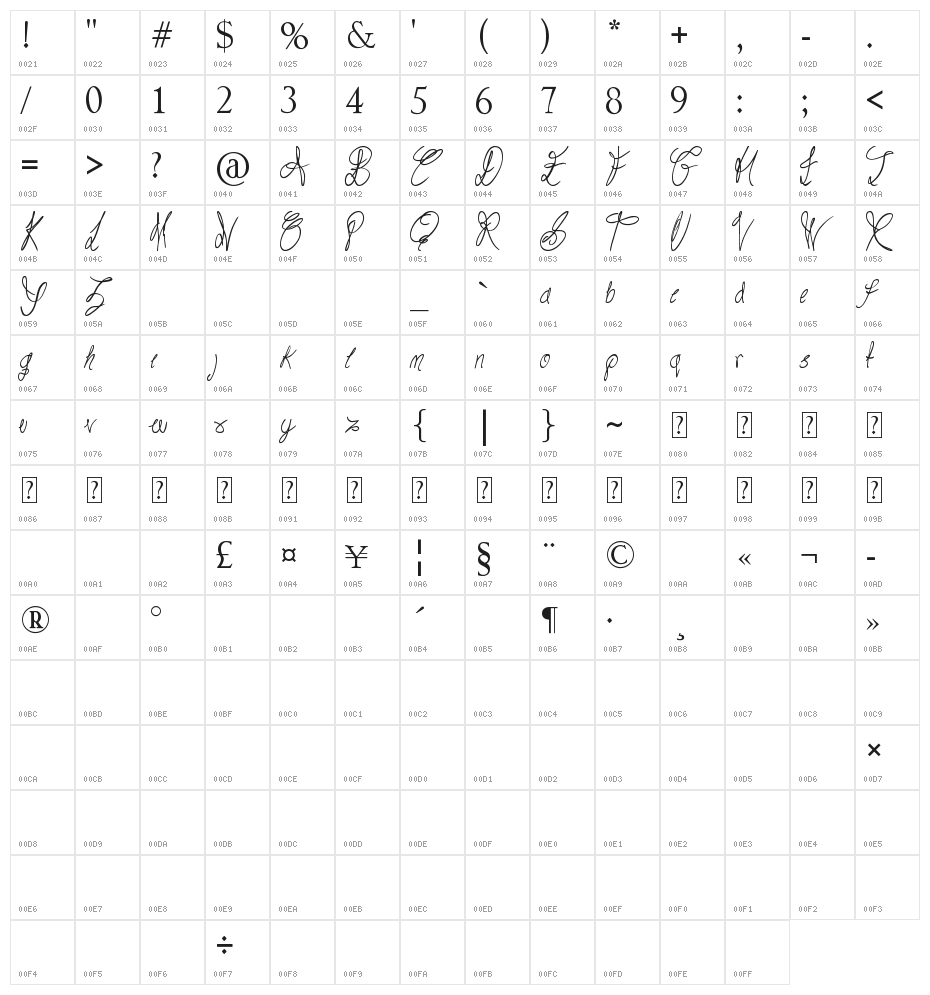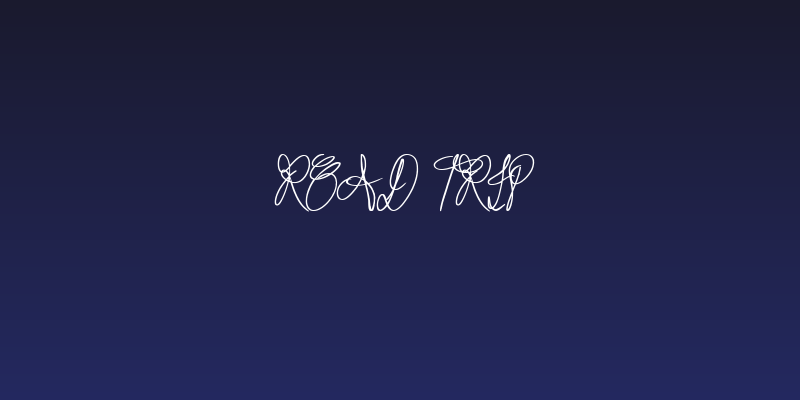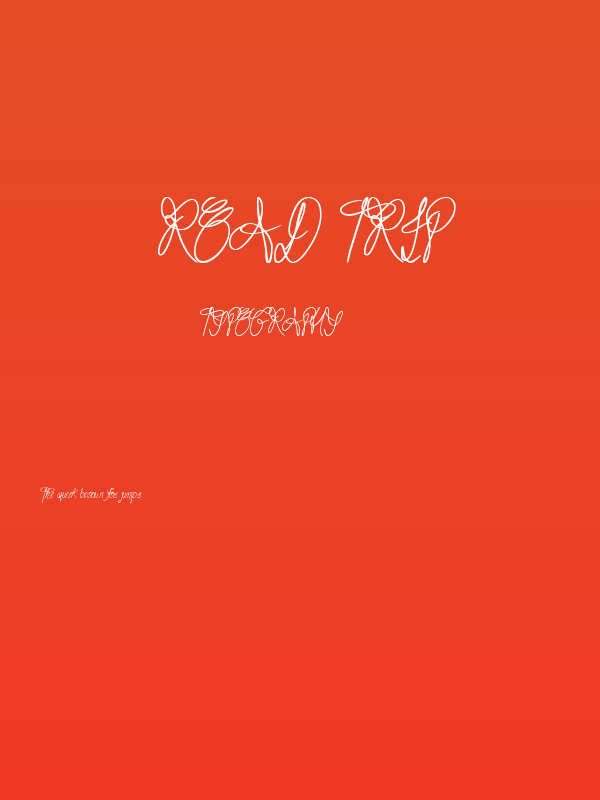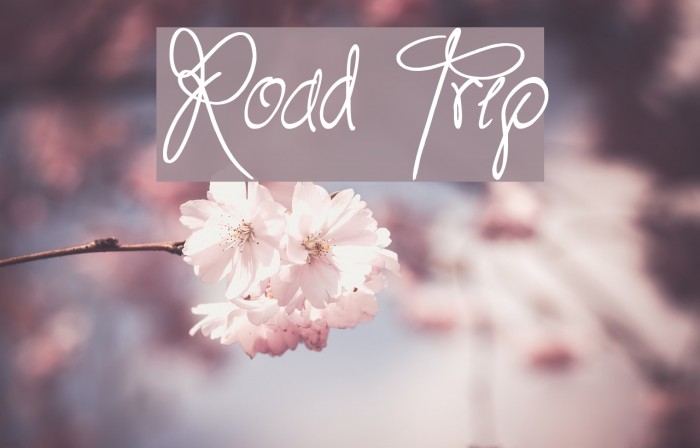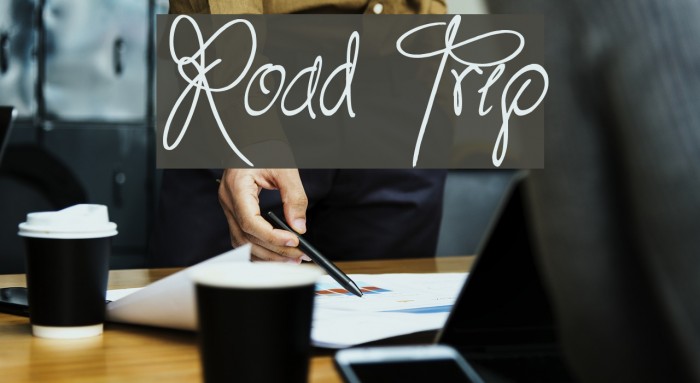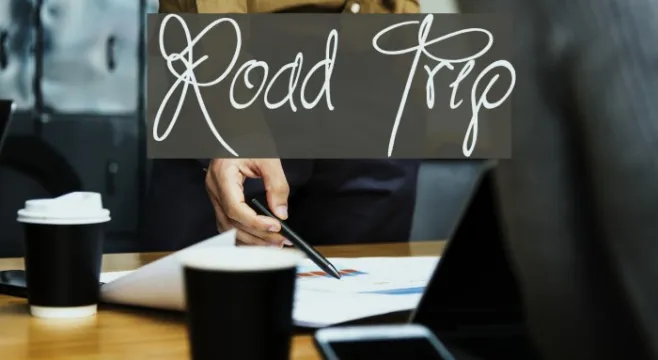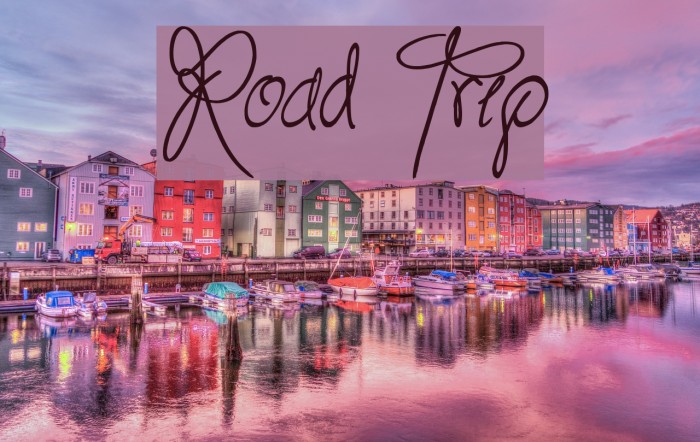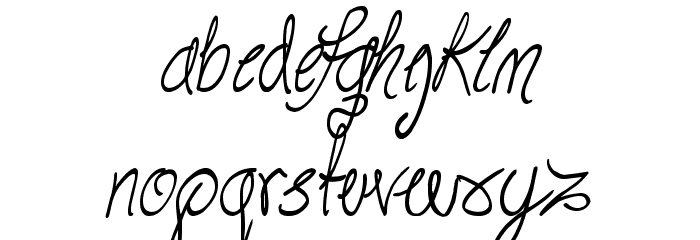
Road Trip Font
Road Trip Description
This font features an elegant and flowing script style, characterized by its intricate loops and swirls. The uppercase letters are particularly ornate, with exaggerated flourishes that give a sense of movement and sophistication. The lowercase letters maintain a consistent style, offering a harmonious blend with the uppercase. The numerals are more straightforward, providing clarity and balance to the overall design. Special characters are included, maintaining the decorative theme. This font is ideal for projects that require a touch of elegance and creativity, such as invitations, branding, and artistic designs.
ROAD-TRIP UPPERCASE
ROAD-TRIP LOWERCASE
ROAD-TRIP OTHER CHARS
| Use Case | Logos, Invitations, Artistic designs |
| Proposed Projects | Ideal for wedding invitations, branding, artistic designs, and elegant stationery. |